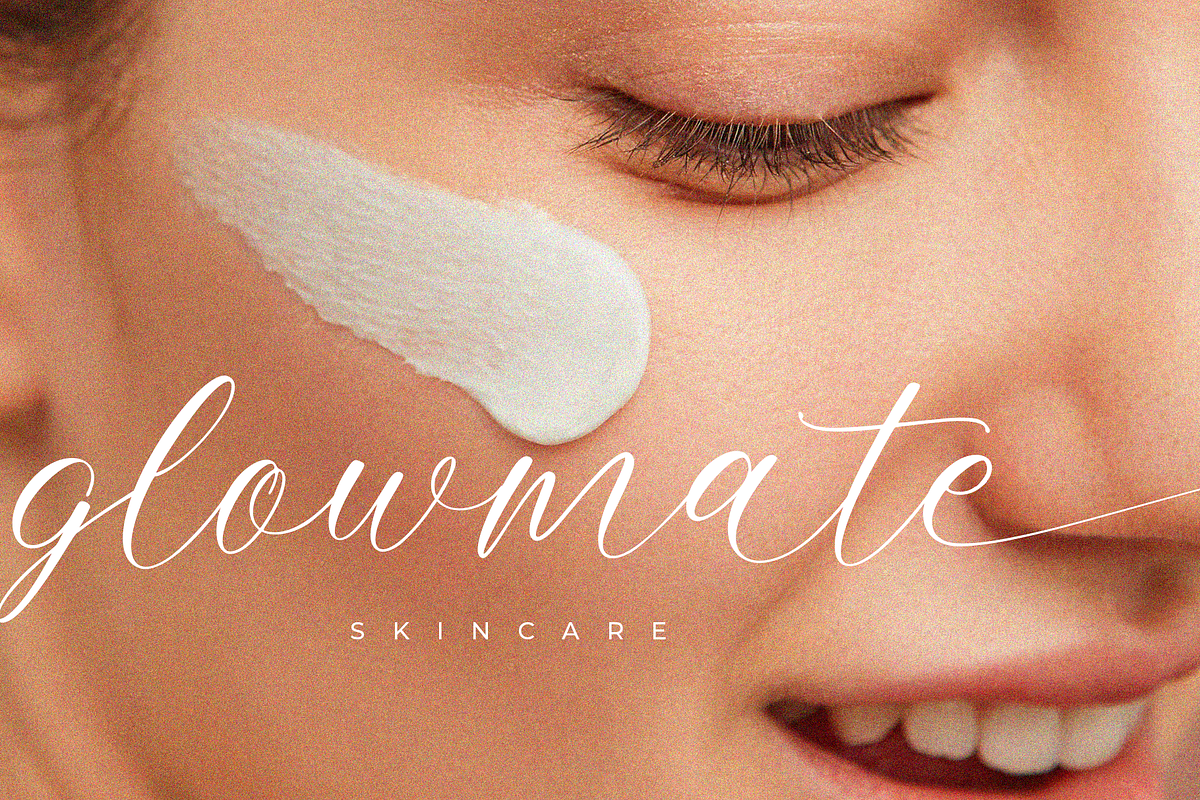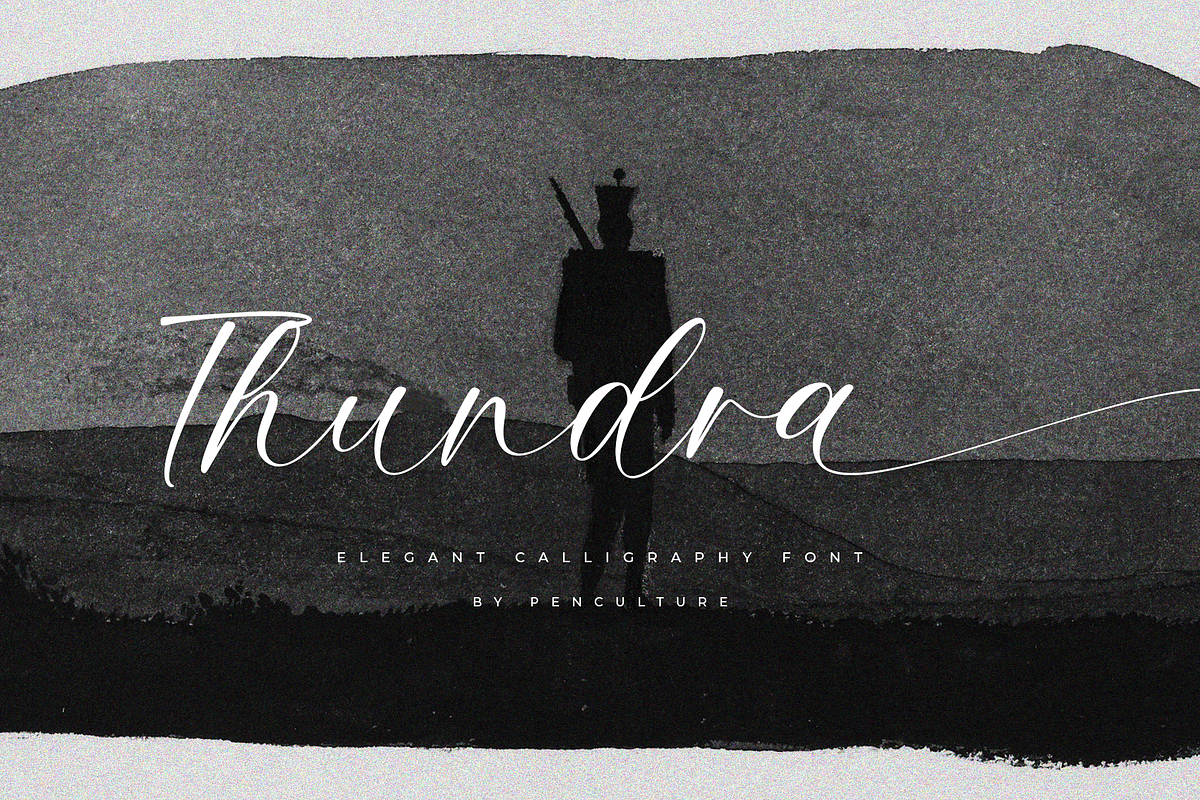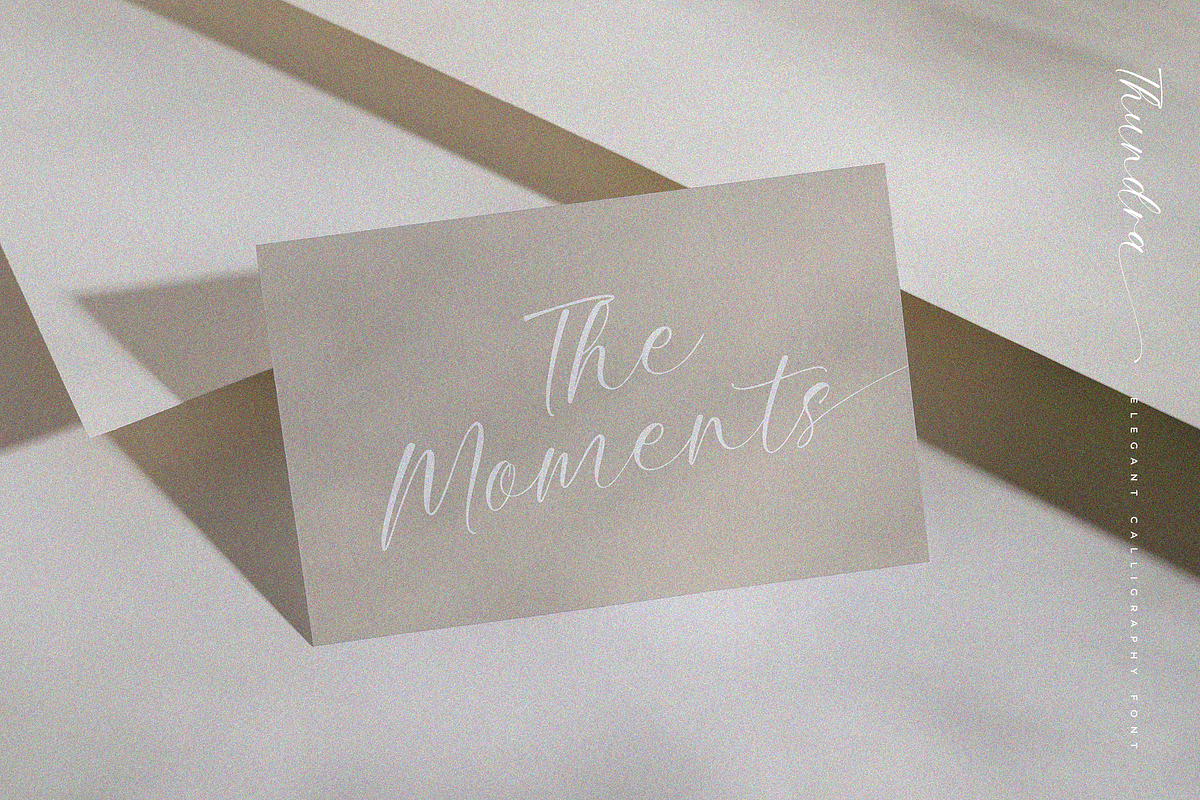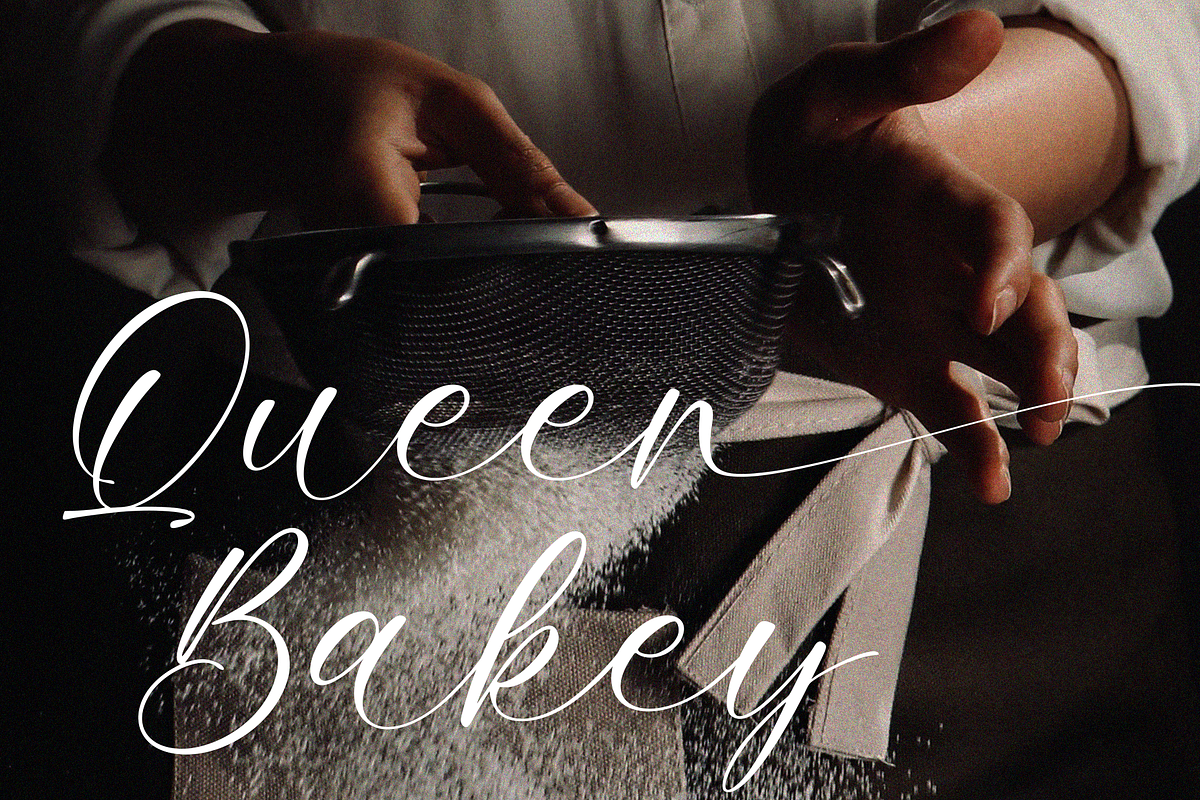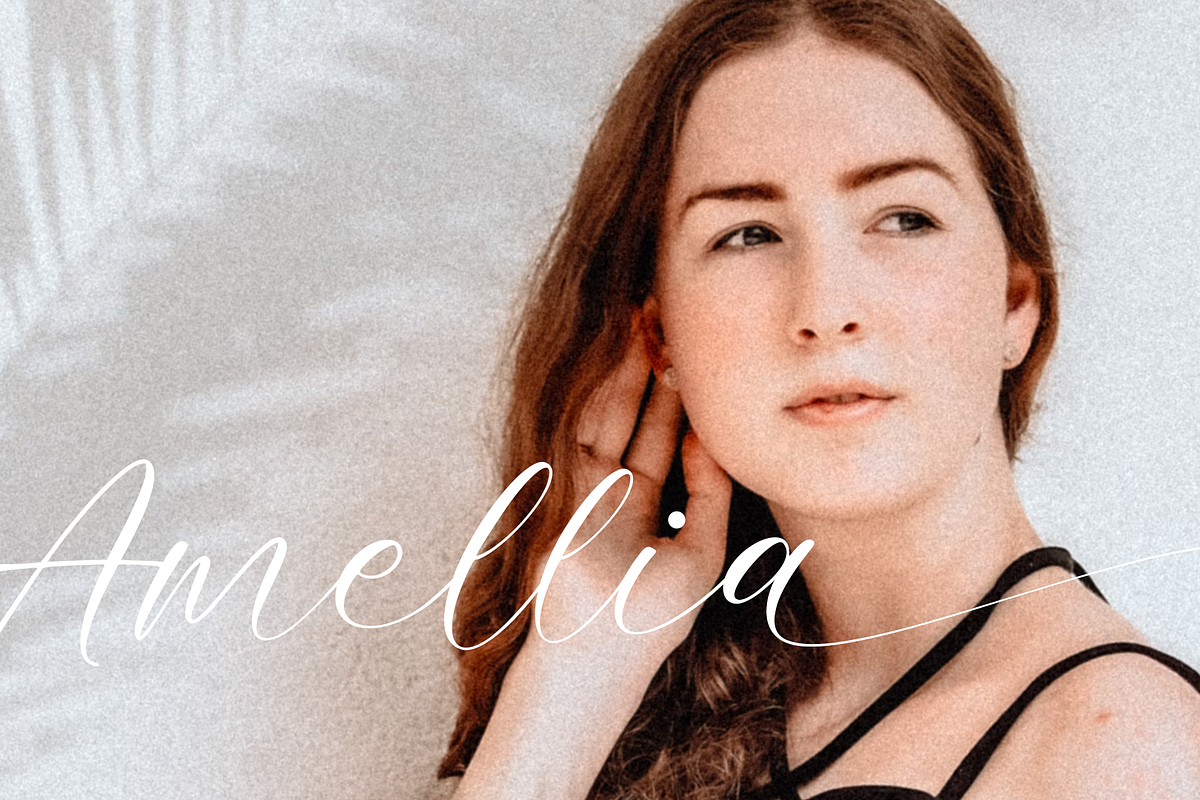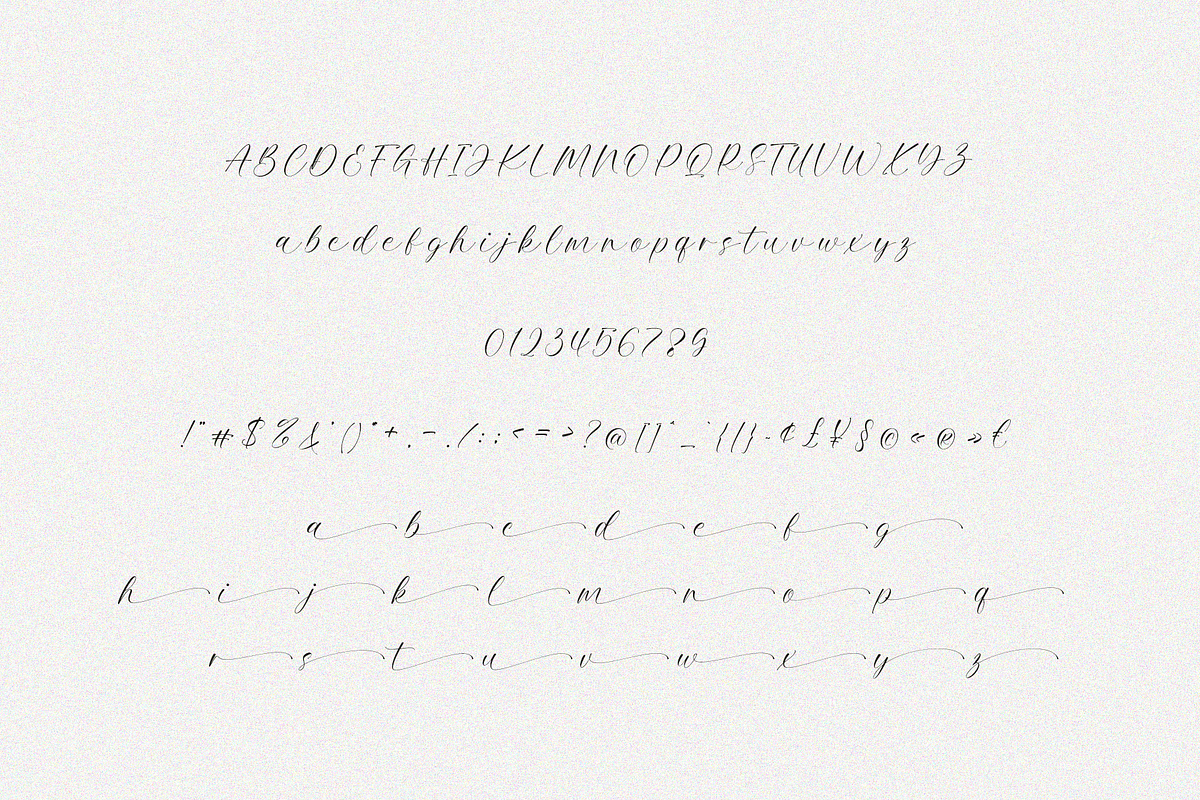
Thundra – Elegant Calligraphy Font
Proudly present "Thundra – Elegant Calligraphy Font"
Thundra is a dynamic script calligraphy font that combines traditional elegance with a bold, contemporary twist. Featuring intricate ligatures and expressive swashes, Thundra stands out with its unique, thunderous strokes that add a touch of drama to any design. Perfect for striking headlines, stylish logos, and eye-catching posters, this font is versatile and impactful.
Thundra’s special touch lies in its ability to seamlessly blend refinement with a powerful presence, making it an excellent choice for branding, fashion designs, and editorial layouts. Elevate your projects with the distinctive flair of Thundra, where sophistication meets strength.